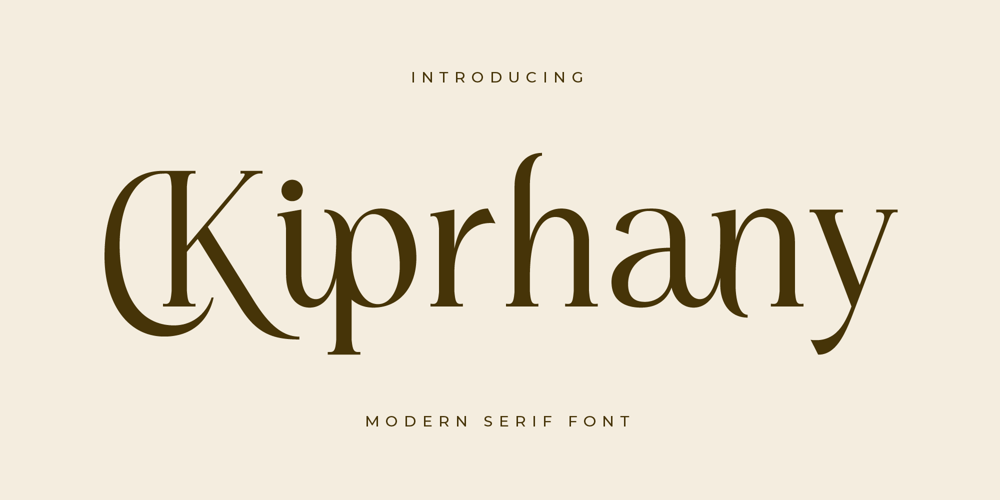
Kiprhany Font Family was designed by Heru Utama Putra and published by Letterena Studios. Kiprhany contains 2 styles and family package options. Kiprhany is a stylish serif font that epitomizes timeless sophistication. With its refined letterforms and subtle details, this font effortlessly blends classic charm with contemporary flair. Ideal for projects that demand an elegant and versatile typeface, Kiprhany adds a touch of refined grace to your design repertoire.